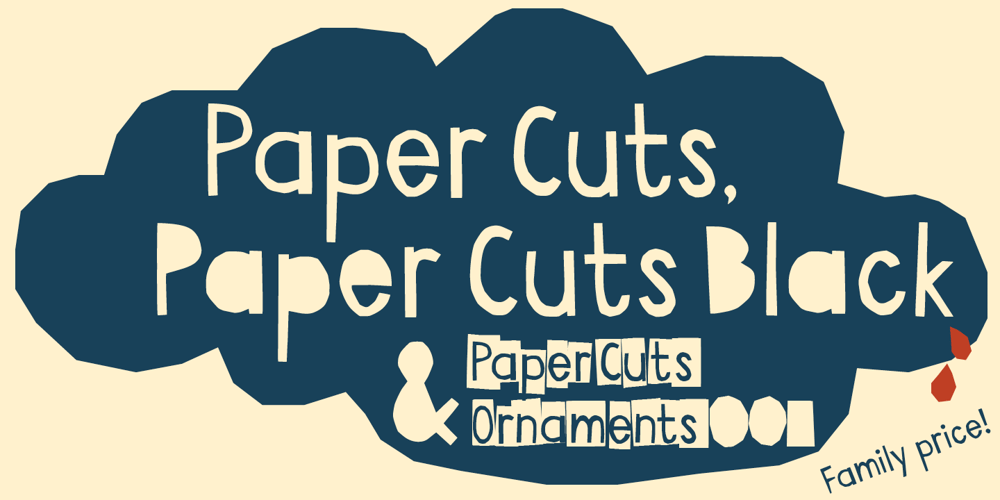
Paper Cuts
Paper Cuts font
Paper Cuts Font Family was designed by Andreas Brunelius and published by Gustav & Brun. Paper Cuts contains 3 styles and family package options. A pair of scissors and a bunch of papers; that is the foundation of Paper Cuts. It’s available in two different styles, Paper Cuts and Paper Cuts Black. The black version was the first stage in the progress and Paper Cuts is the second one where the negative space appears. Also, you get Paper Cuts Ornaments for free. It dilates your possibilities further. Buy them separately or in a “Nice Price” family set.